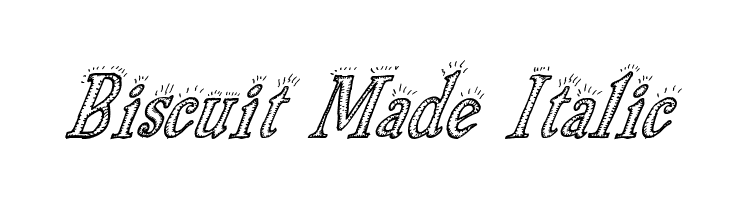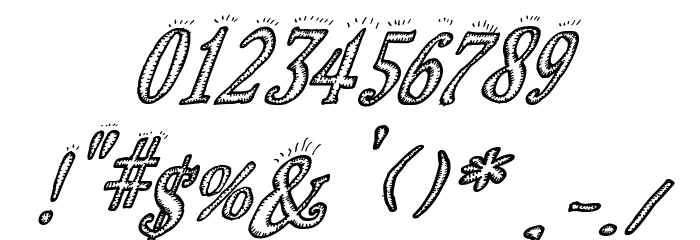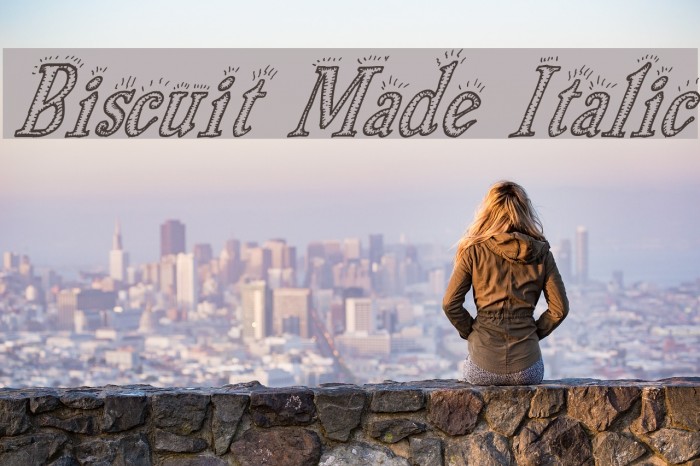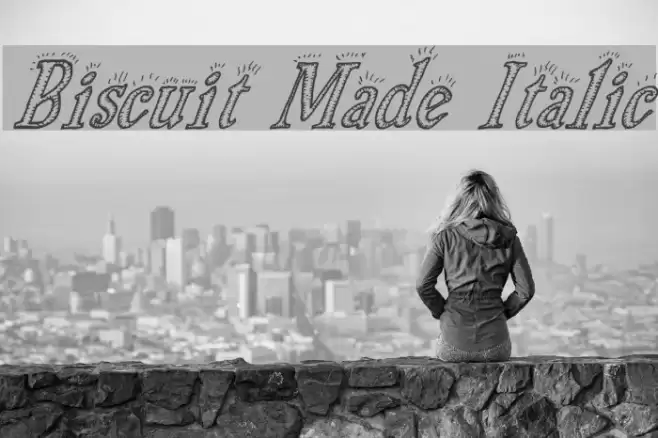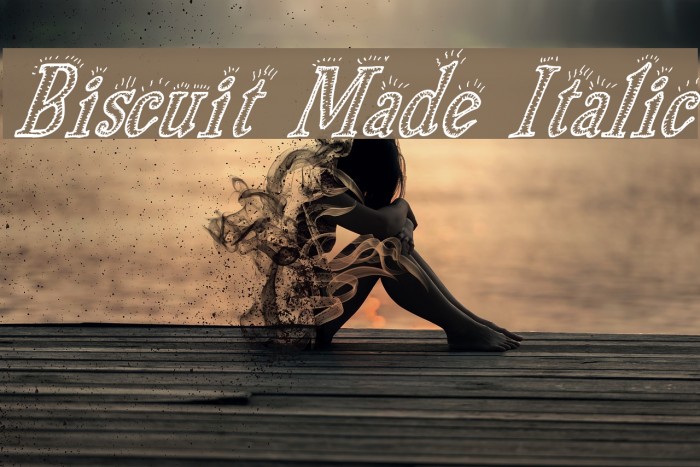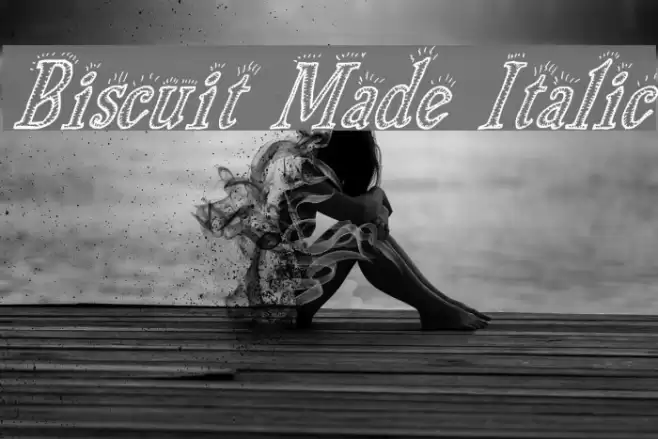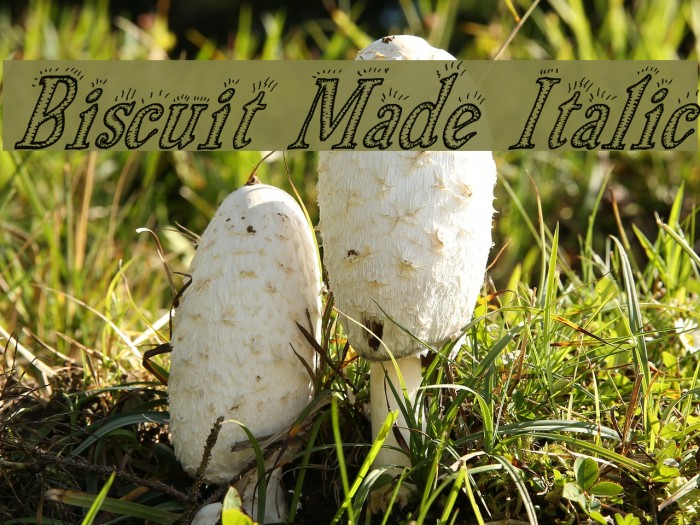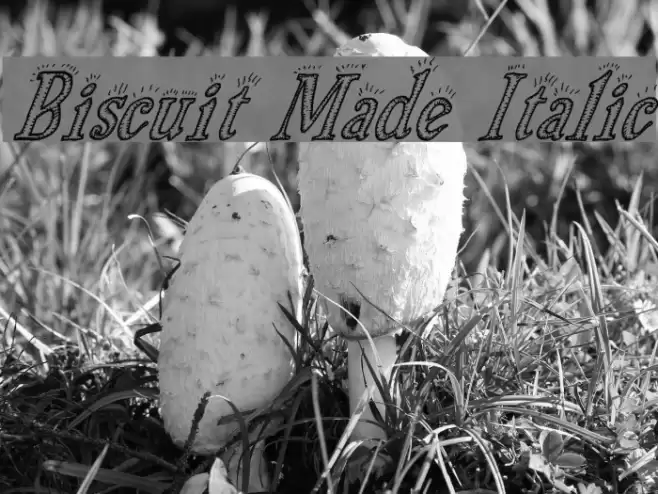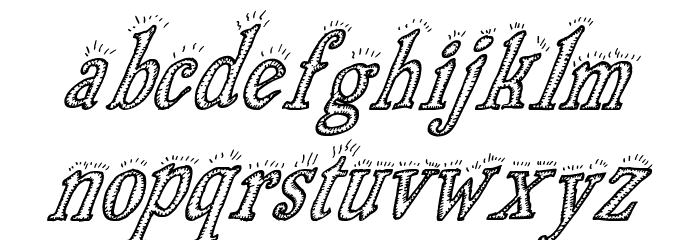
Biscuit Made Italic Font
Biscuit Made Italic Description
This font features a playful and whimsical design with a hand-drawn aesthetic. Each character is adorned with small decorative lines that give it a textured, almost stitched appearance. The letters are italicized, adding a sense of movement and dynamism. The strokes are moderately thick, providing a medium contrast that enhances readability while maintaining its decorative charm. The font includes a full set of uppercase and lowercase letters, numbers, and a variety of special characters, making it versatile for different uses.
| Overall Style | Whimsical |
| Use Case | Logos, Headlines, Posters |
| Proposed Projects | Ideal for children's book covers, playful branding, greeting cards, and creative posters. |